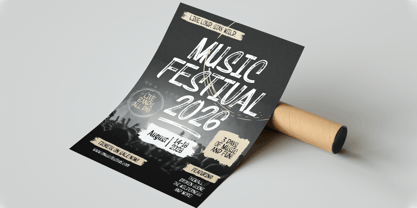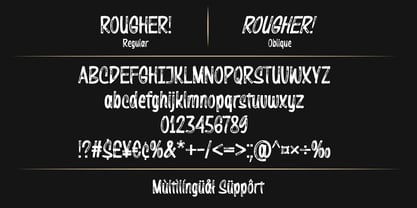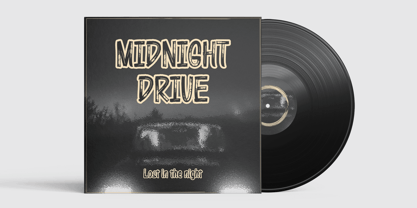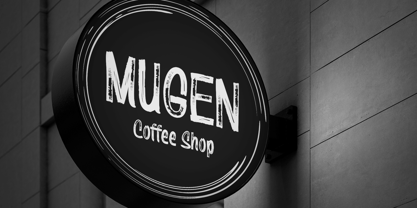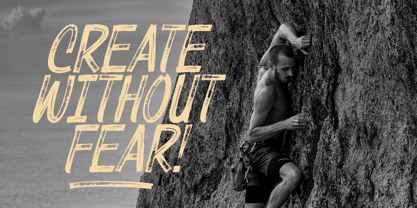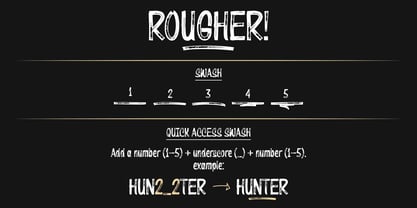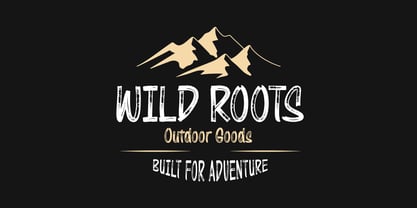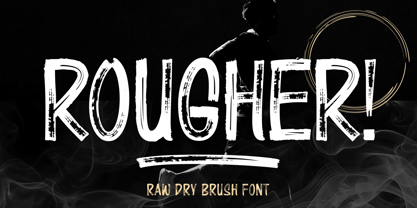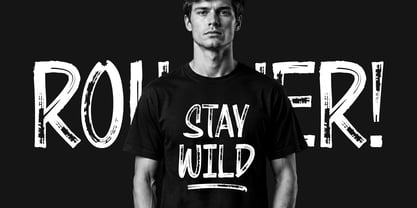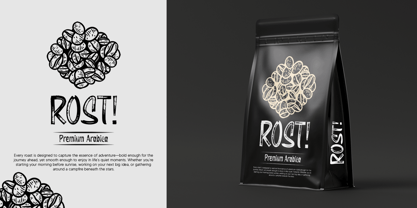
Rougher
by Lemonthe
The Rougher Font Family was designed by Dwi Ahidian and published by Lemonthe. Rougher contains 2 styles and family package options. More about this family
ROUGHER is a raw dry brush font designed to bring bold energy and authentic handcrafted character to your creative projects. Featuring rough brush strokes, textured details, and an expressive handmade appearance, this font delivers a strong visual impact while maintaining excellent readability.
Created for designers who want a fearless and organic look, ROUGHER captures the imperfect beauty of real brush lettering. The natural textures and rugged edges add personality and depth, making every word feel alive and full of character.
With its handcrafted feel and rugged brush texture, ROUGHER is perfect for projects that demand attention while maintaining a natural and authentic character. Perfect for posters, branding, logos, product packaging, album covers, t-shirt designs, social media content, outdoor-themed projects, and any creative work that needs a bold and adventurous touch.